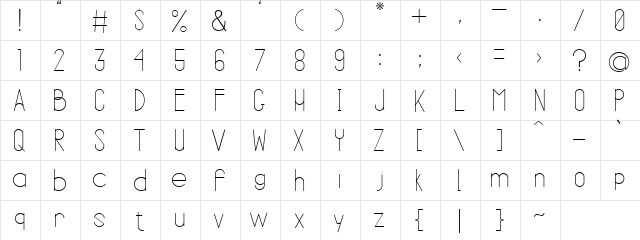
ARK HILARIOUS Regular
| Foundry | ARK Ariq Aufa Muzakky |
| Designer | ARK Ariq Aufa Muzakky |
Design Context for ARK HILARIOUS Typeface
ARK HILARIOUS is a composed and adaptable typeface that performs quietly and consistently across a wide range of design contexts.